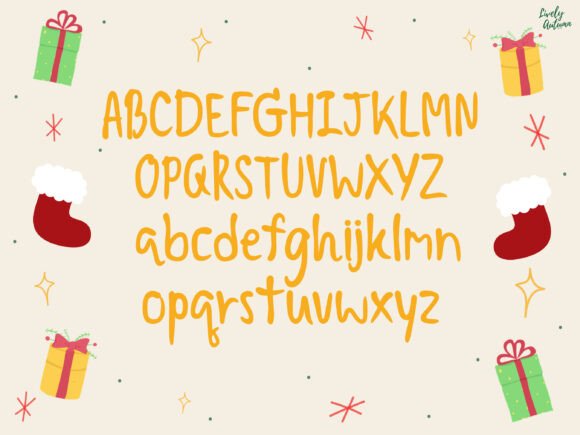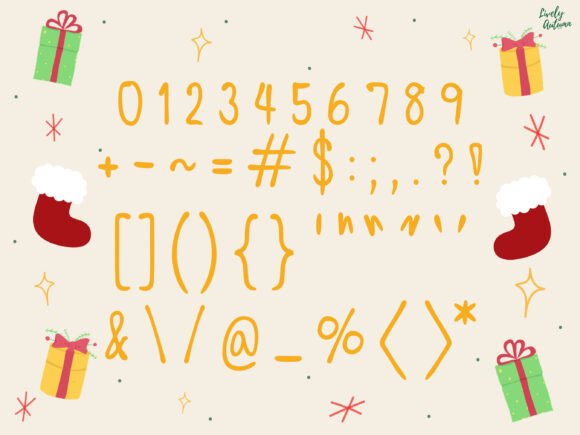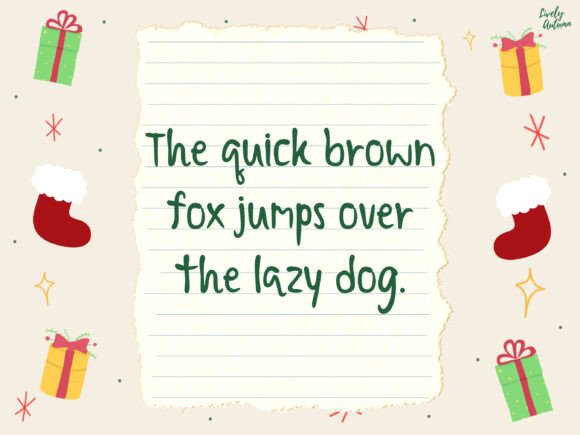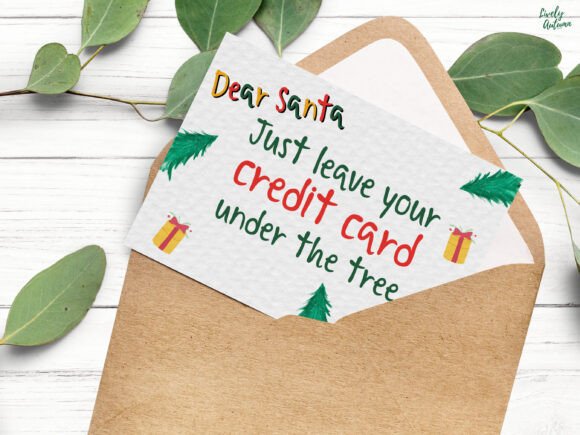
Introducing Dear Santa Font: The Perfect Addition to Your Design Projects
Are you looking for a font that can add a touch of whimsy and charm to your design projects? Look no further than Dear Santa Font! This adorable sans-serif, handwritten font is perfect for a variety of projects, from invitations to posters, social media graphics, journals, and more. In this article, we’ll take a closer look at Dear Santa Font and explore its features, uses, and benefits.
What is Dear Santa Font?
Dear Santa Font is a unique and playful font that is sure to capture the hearts of designers and crafters alike. Its sans-serif, handwritten style gives it a friendly and approachable feel, making it perfect for projects that require a personal touch. The font is highly legible and versatile, making it suitable for a wide range of applications.
Features of Dear Santa Font
So, what makes Dear Santa Font so special? Here are some of its key features:
- Cute and playful design: Dear Santa Font has a charming and whimsical design that is sure to add a touch of personality to your projects.
- Sans-serif and handwritten style: The font’s sans-serif, handwritten style gives it a friendly and approachable feel.
- Highly legible: The font is highly legible, making it perfect for projects that require clear and easy-to-read text.
- Versatile: Dear Santa Font is suitable for a wide range of applications, from invitations to posters, social media graphics, journals, and more.
Uses of Dear Santa Font
Dear Santa Font is a versatile font that can be used for a variety of projects. Here are some ideas to get you started:
- Invitations: Use Dear Santa Font to create adorable invitations for parties, events, and gatherings.
- Posters: Create eye-catching posters for movies, concerts, and other events using Dear Santa Font.
- Social media graphics: Use Dear Santa Font to create engaging social media graphics, such as Facebook posts, Instagram stories, and Twitter headers.
- Journals and planners: Add a touch of personality to your journals and planners with Dear Santa Font.
- Crafting projects: Use Dear Santa Font to add a personal touch to your crafting projects, such as scrapbooking, card making, and DIY decor.
Benefits of Using Dear Santa Font
So, why should you use Dear Santa Font for your design projects? Here are some benefits:
- Adds a personal touch: Dear Santa Font adds a personal touch to your projects, making them more relatable and engaging.
- Easy to read: The font is highly legible, making it easy for readers to understand your message.
- Versatile: Dear Santa Font is suitable for a wide range of applications, making it a great addition to your font library.
- Time-saving: Using Dear Santa Font can save you time and effort, as you don’t have to spend hours designing a custom font.
Tips for Using Dear Santa Font
Here are some tips for using Dear Santa Font effectively:
- Use it for headings and titles: Dear Santa Font is perfect for headings and titles, as it adds a touch of personality and whimsy.
- Pair it with other fonts: Experiment with pairing Dear Santa Font with other fonts to create a unique and interesting look.
- Use it for body text: While Dear Santa Font is perfect for headings and titles, it can also be used for body text in some cases.
In conclusion, Dear Santa Font is a charming and versatile font that is perfect for a variety of design projects. Its sans-serif, handwritten style gives it a friendly and approachable feel, making it suitable for projects that require a personal touch. With its highly legible design and wide range of applications, Dear Santa Font is a great addition to any font library. So why not give it a try and see how it can add a touch of whimsy and charm to your design projects?